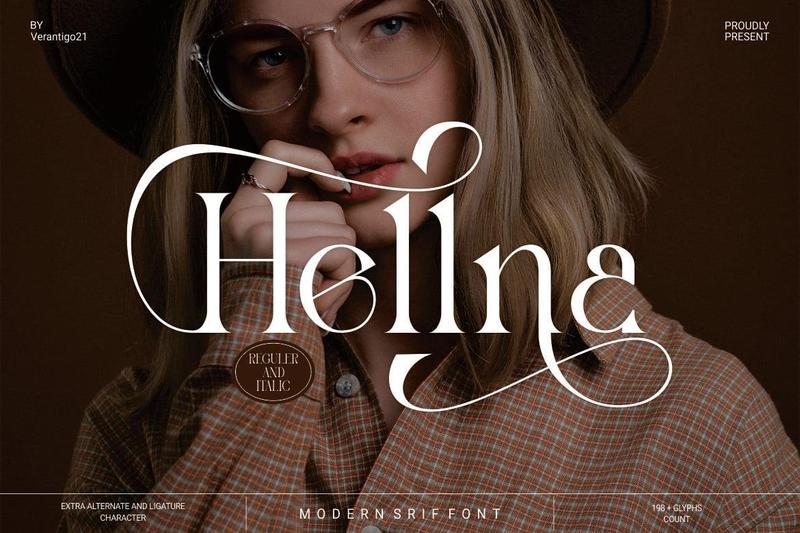
Hellna KY22STB
**Introducing Hellna, a bold and modern condensed typeface. With its strong, impactful lines and unique cut details, Hellna is perfect for creating eye-catching headlines, logos, and posters. Its bold, blocky letters convey strength and confidence, making it ideal for projects that need to stand out and leave a lasting impression. Whether you’re designing for advertising, fashion, or creative branding, Hellna robust, condensed style provides a versatile solution for enhancing visual impact.**
**Features:
* Uppercase
* Lowercase
* Numeral & Punctuation
* Ligatures